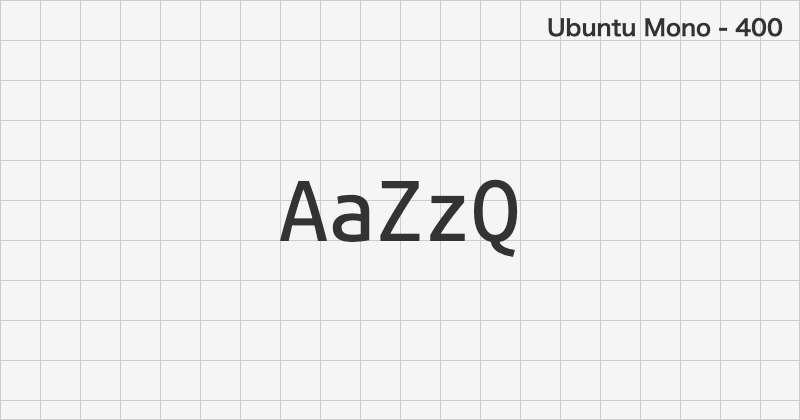
Ubuntu Mono is a fixed-width font that integrates seamlessly with the Ubuntu Font Family, designed for clarity and readability. Its structure is optimized for both screen and print, ensuring that it meets the diverse needs of users. The design reflects a modern aesthetic while maintaining functionality.
Supports Latin, Latin Extended, Cyrillic, Cyrillic Extended, Greek and Greek Extended, making it suitable for multilingual environments.
Available in Regular and Bold weights, including Italic styles, Ideal for displaying numbers, tables, and program code.
Ubuntu Mono was developed by Dalton Maag, funded by Canonical Ltd, to support the wider Free Software community and enhance the Ubuntu project.